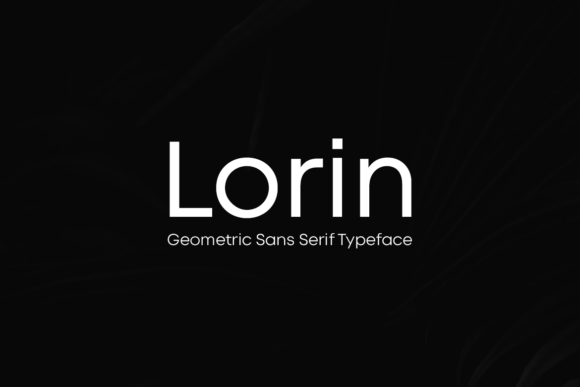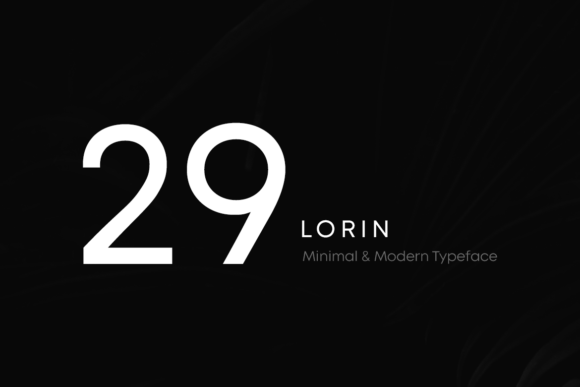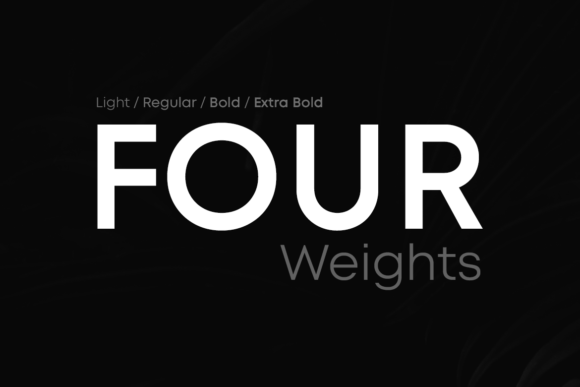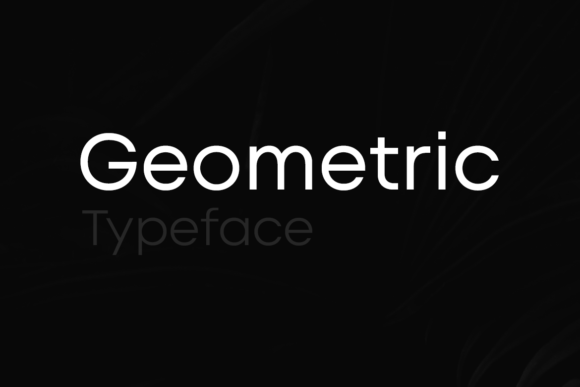
Lorin Font: Modern Minimalist Sans Serif for Logo Design & Branding
About the Lorin Font
Make a bold statement with Lorin Font, a powerful and memorable font. The Lorin is a modern geometric sans serif typeface with a great focus on aesthetic quality of typography. The concept of Lorin is inspired from some of the classic geometric fonts but with an added quality and charm.
Lorin will be best suited for creating any type of content such as logo type, headlines, normal body texts, big posters and anything that you like. If you add some letter spacing you will get a unique style that you always find in high profile fashion web stores and minimal portfolio websites. The font comes with 4 weights.
Lorin Font Usage Examples
Lorin Font Example